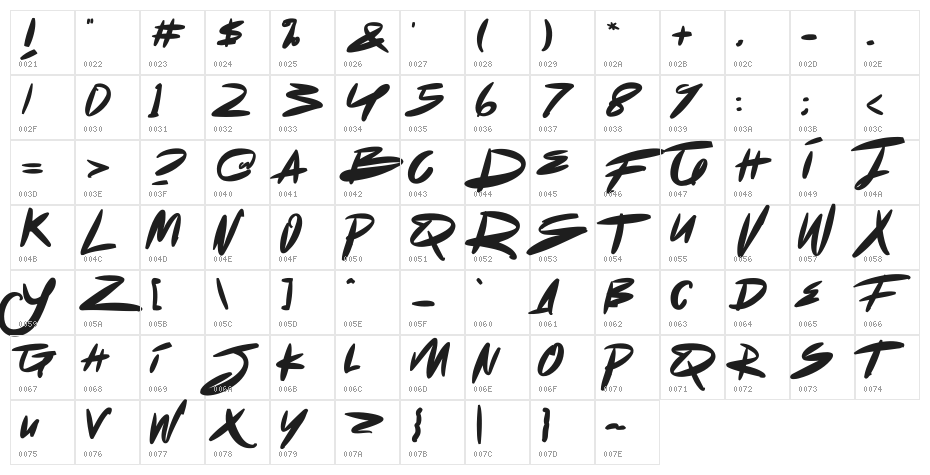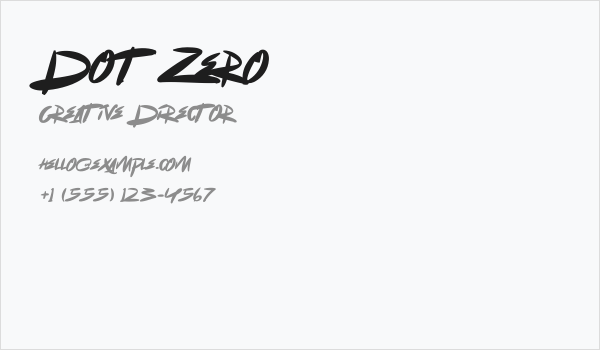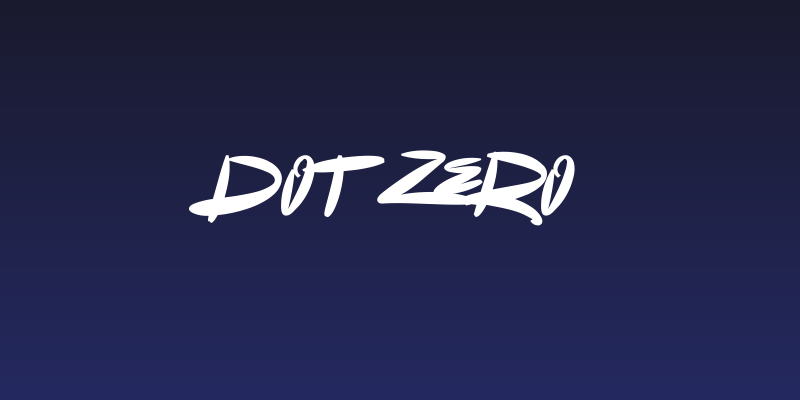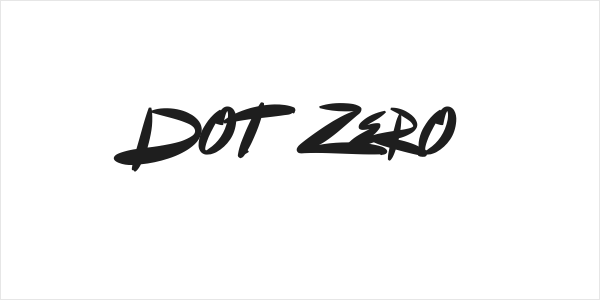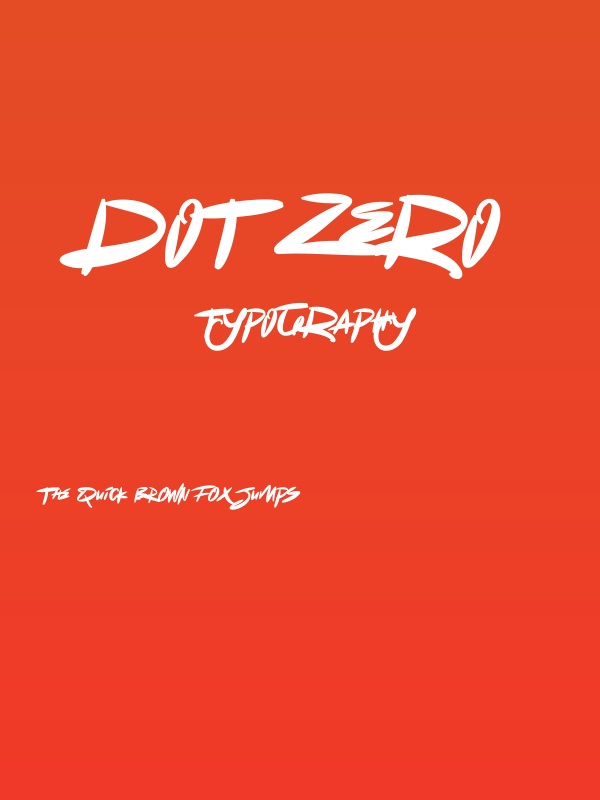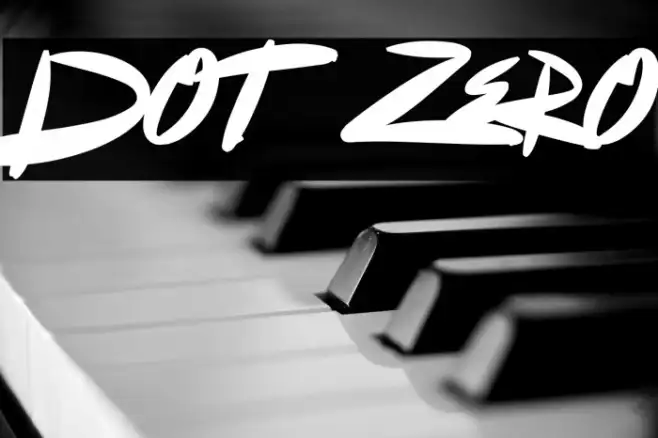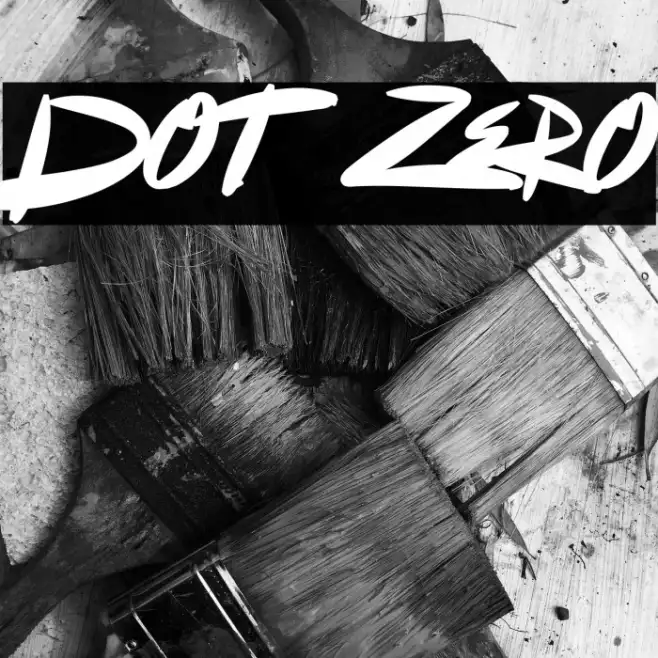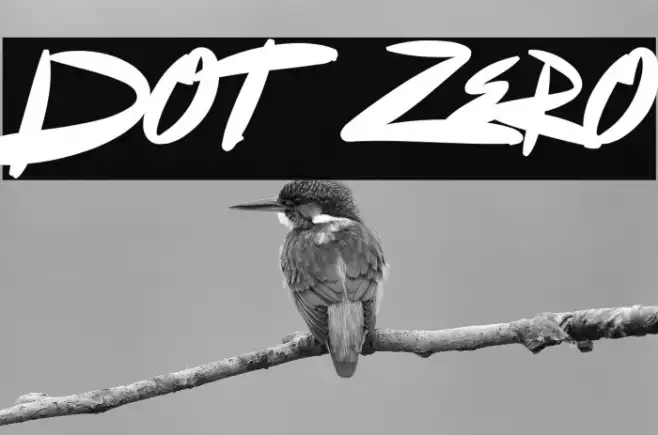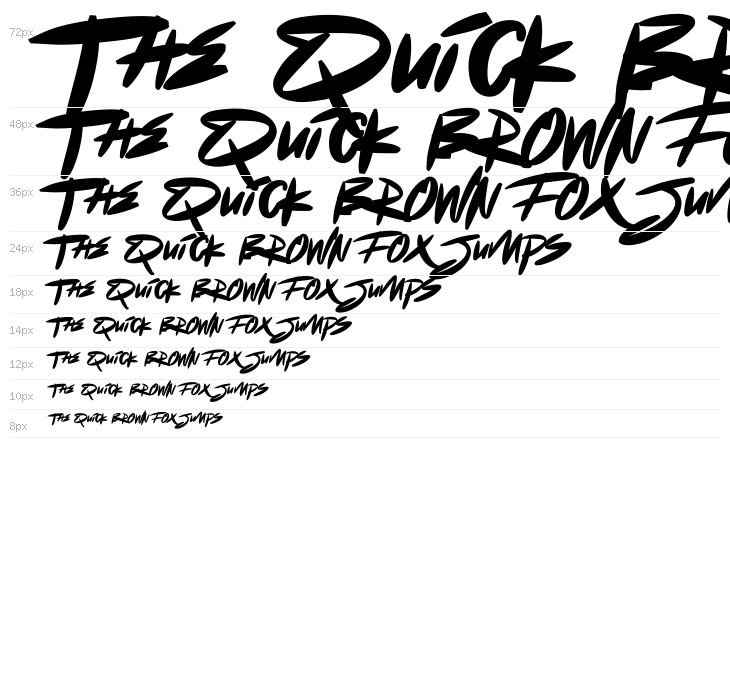
Dot Zero Font
Dot Zero Description
This font exhibits a bold, expressive style with a handwritten appearance. The strokes are thick and dynamic, giving each character a sense of movement and energy. The uppercase and lowercase letters maintain a consistent style, with a slightly slanted orientation that adds to the casual, yet impactful look. Numbers and special characters are crafted with the same boldness, ensuring uniformity across all elements. The overall design is reminiscent of graffiti or street art, making it stand out with its unique flair.
| Proposed Projects | Ideal for projects that require a bold statement, such as posters, album covers, or branding for creative industries. |